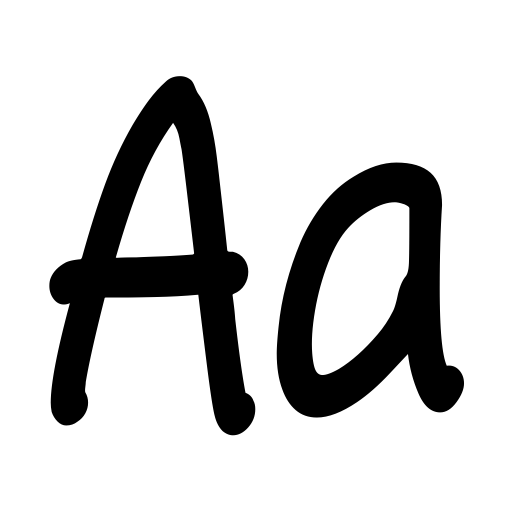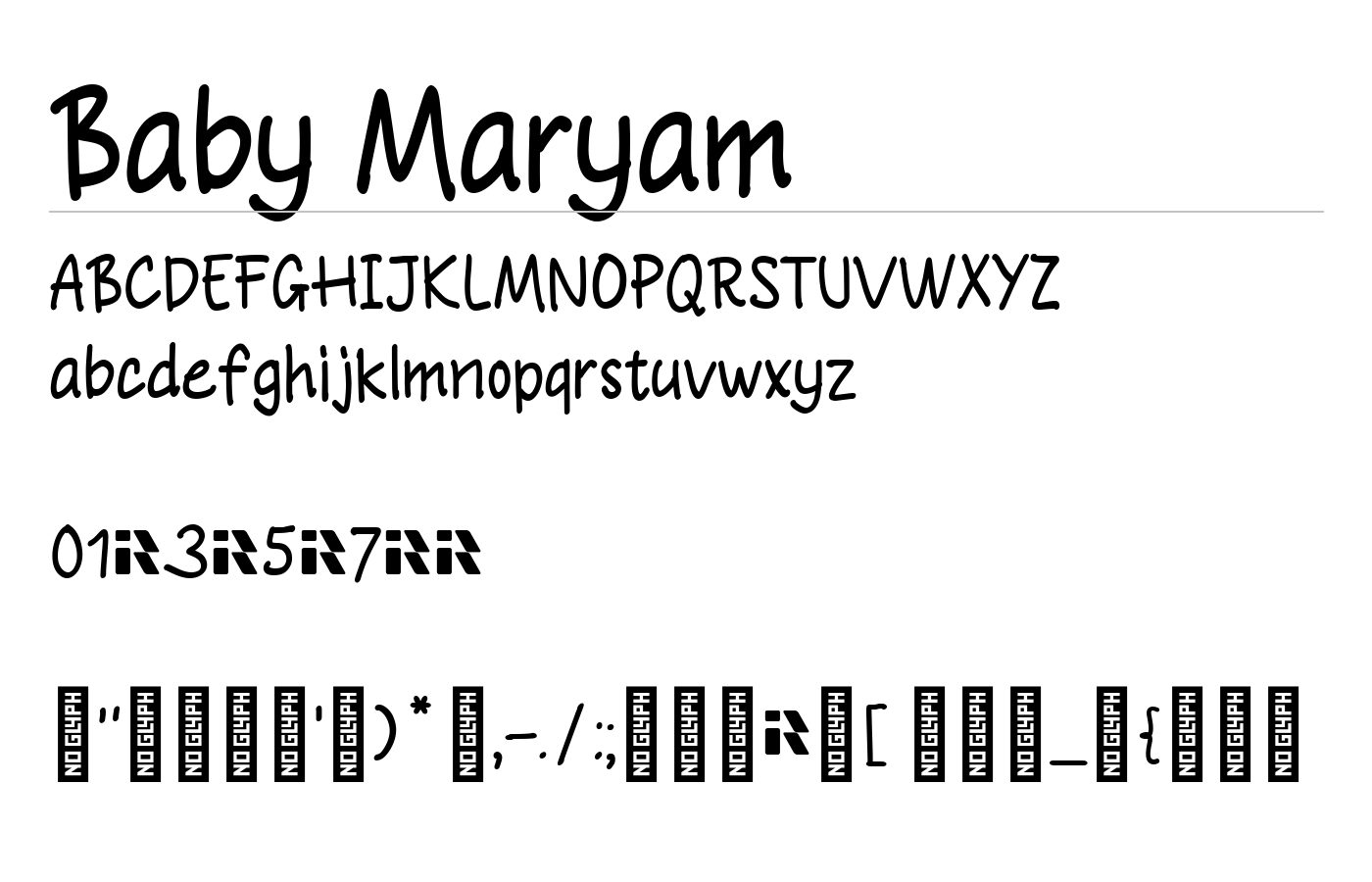
Baby Maryam is a casual, playful handwritten sans serif font with a light to regular weight and a friendly, slightly irregular stroke that mimics natural penmanship. Its open letterforms and moderate x-height make it approachable and easy to read, ideal for informal, child-oriented designs or creative projects needing a warm, personal touch. This font works wonderfully for children's books, greeting cards, and branding that seeks to convey charm and friendliness.
Baby Maryam Font
About Baby Maryam Font